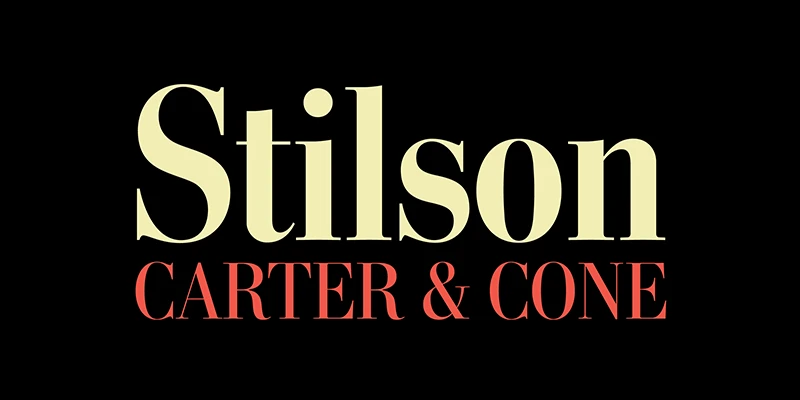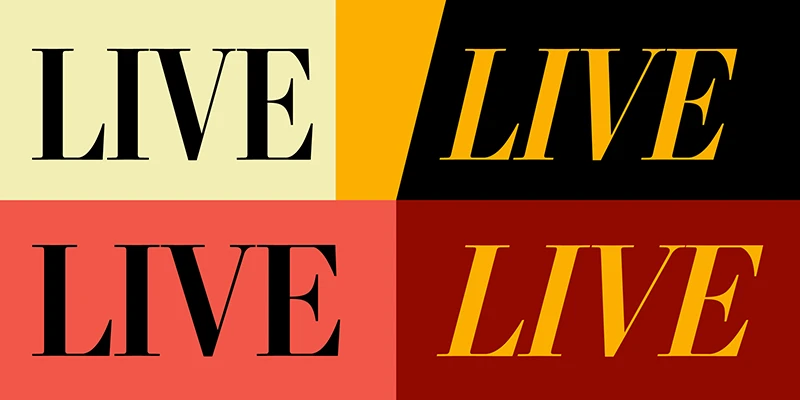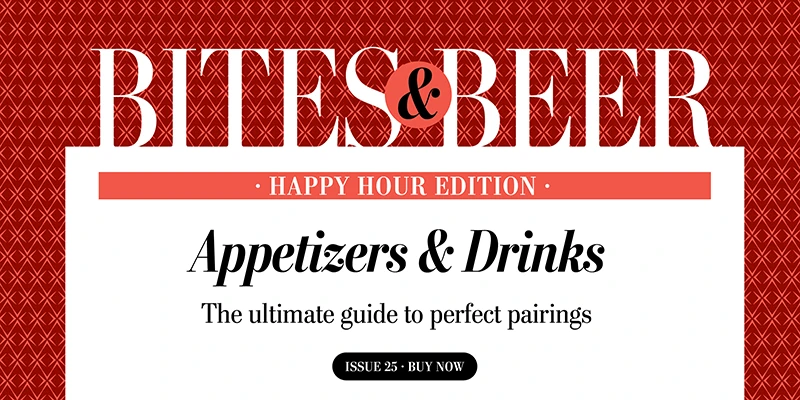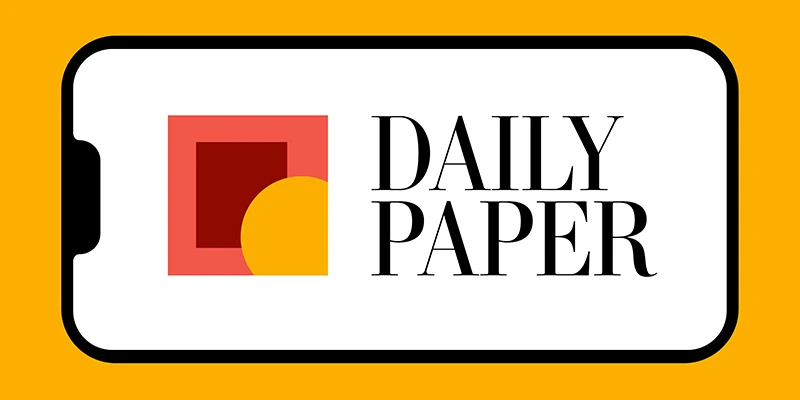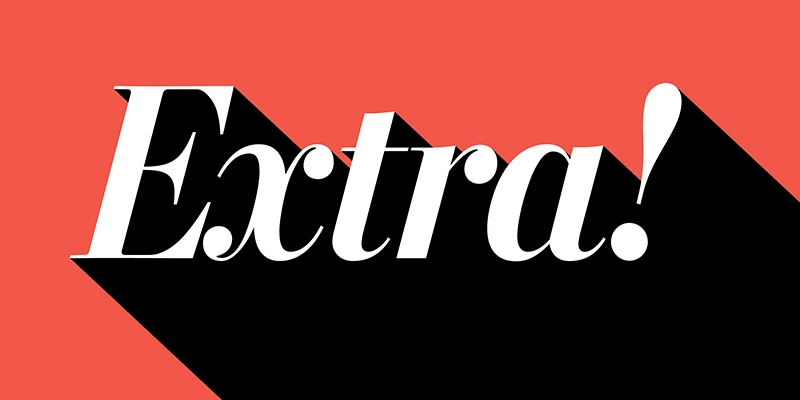
Stilson
From Carter & Cone
Typefaces come and go, but since 1997, The Washington Post‘s headlines have been distinguished by the iconic Stilson, designed by Matthew Carter. In 2009, Richard Lipton, Jill Pichotta, and Dyana Weissman expanded upon the modern serif font family adding Display & Condensed widths for use at larger scale. Concise and elegant, its forms balance authority with economy — headlines feel substantial without becoming heavy or congested. Stilson, Stilson Display, and Stilson Display Condensed are available in Regular, Italic, Bold, and Bold Italic.
Designed by Matthew Carter, Richard Lipton, Jill Pichotta & Dyana Weissman